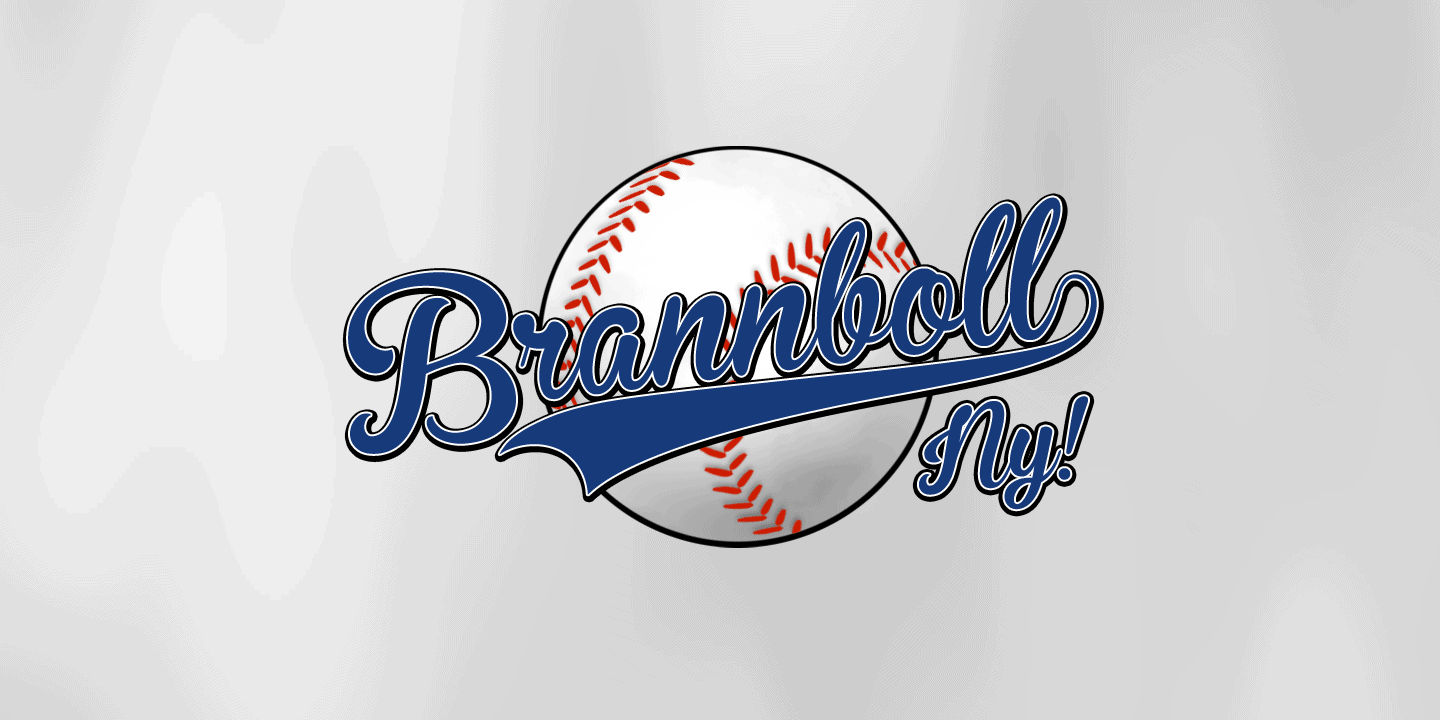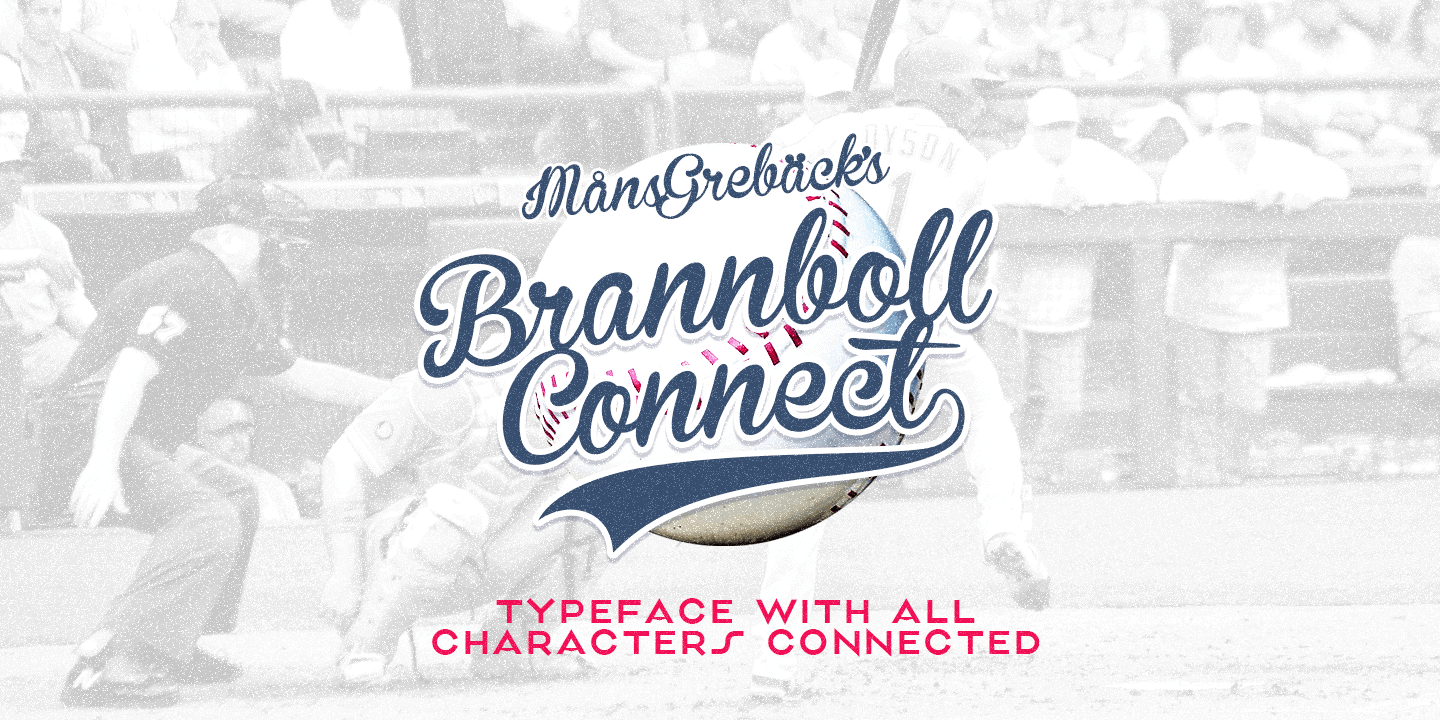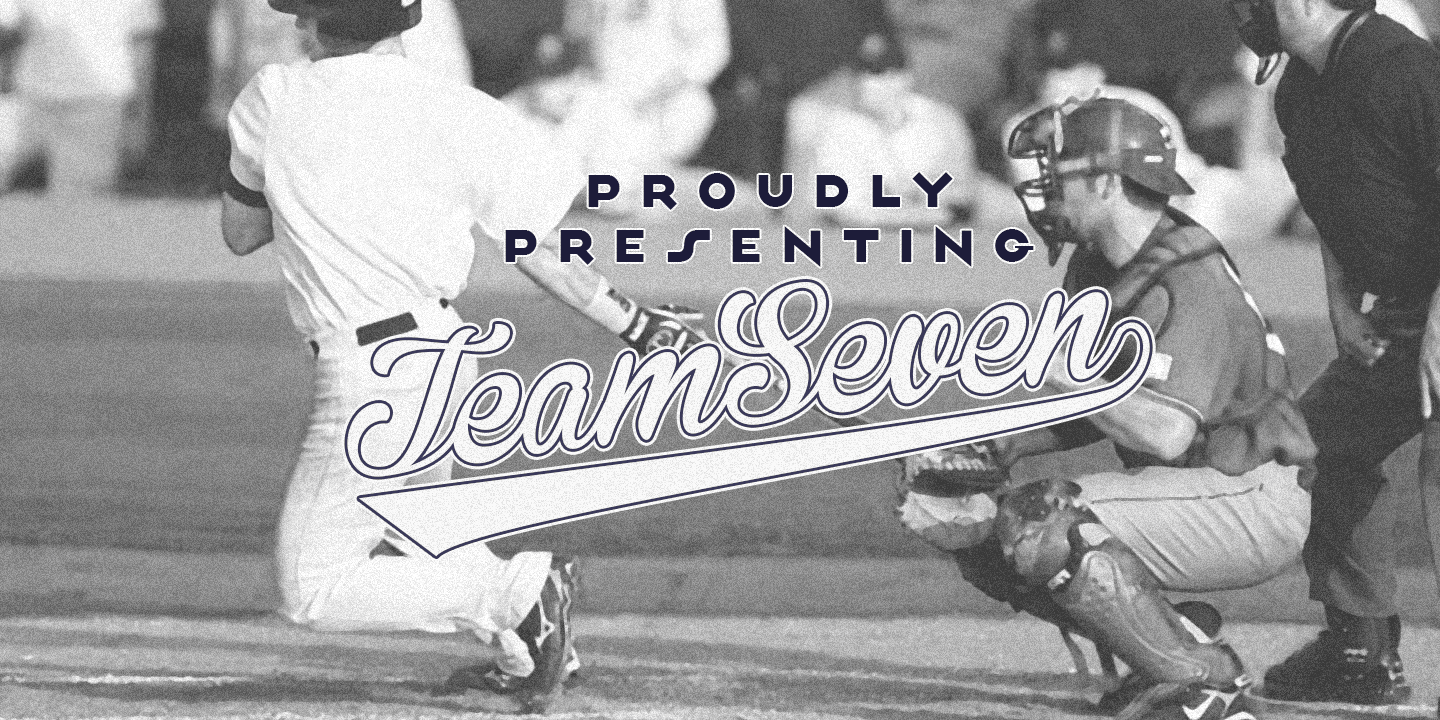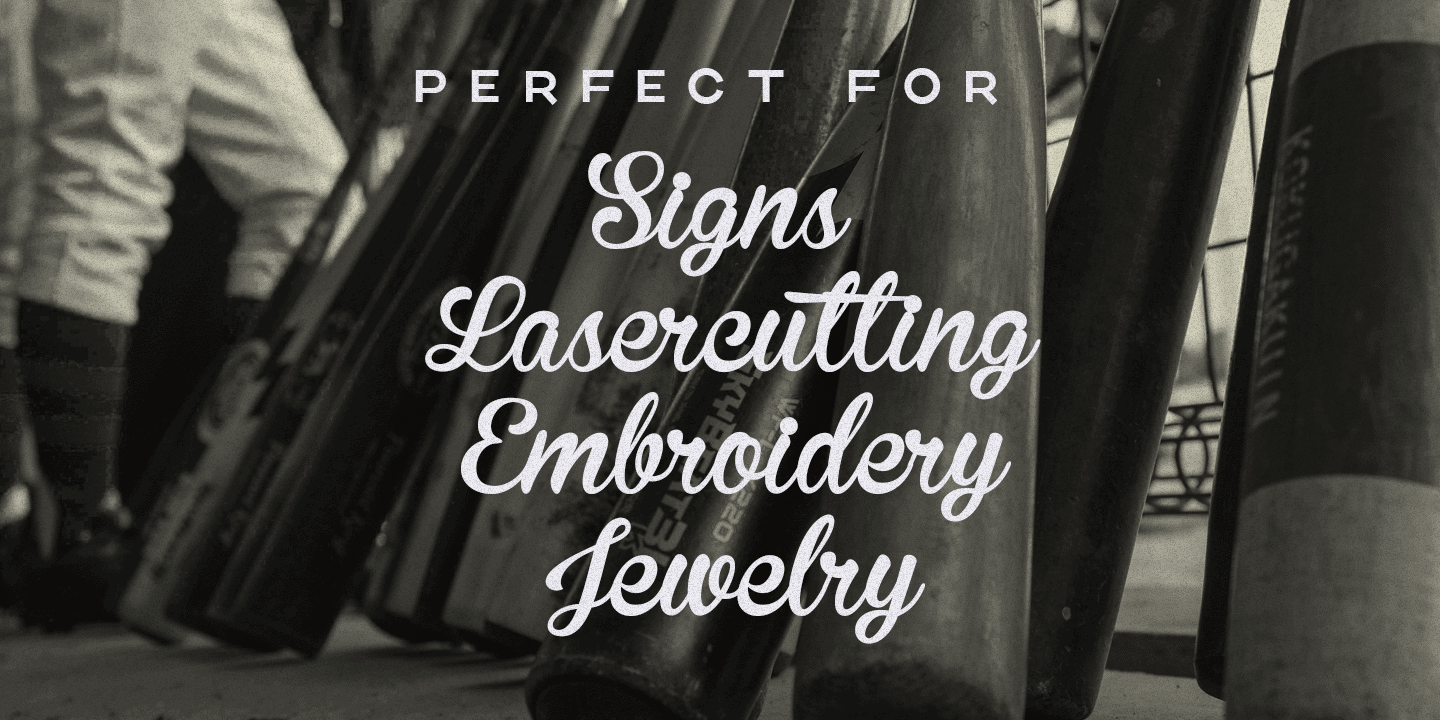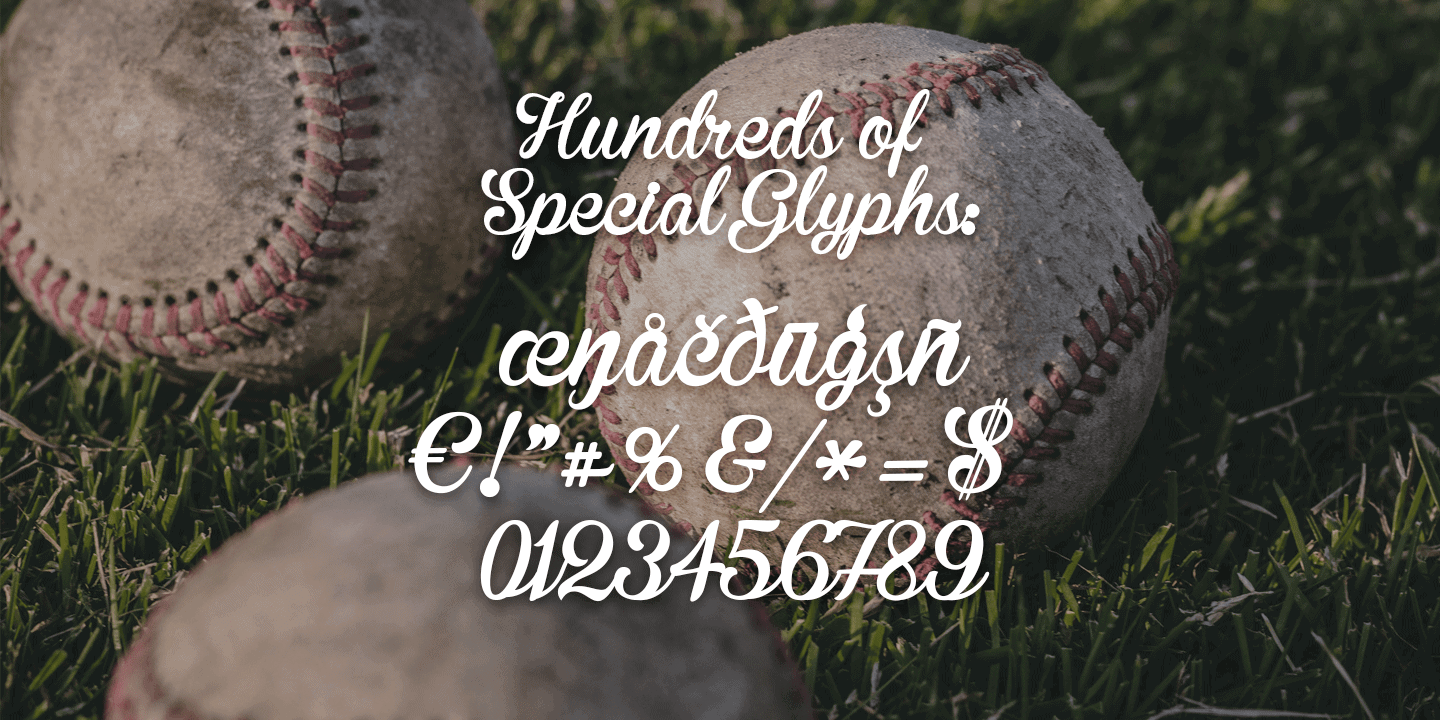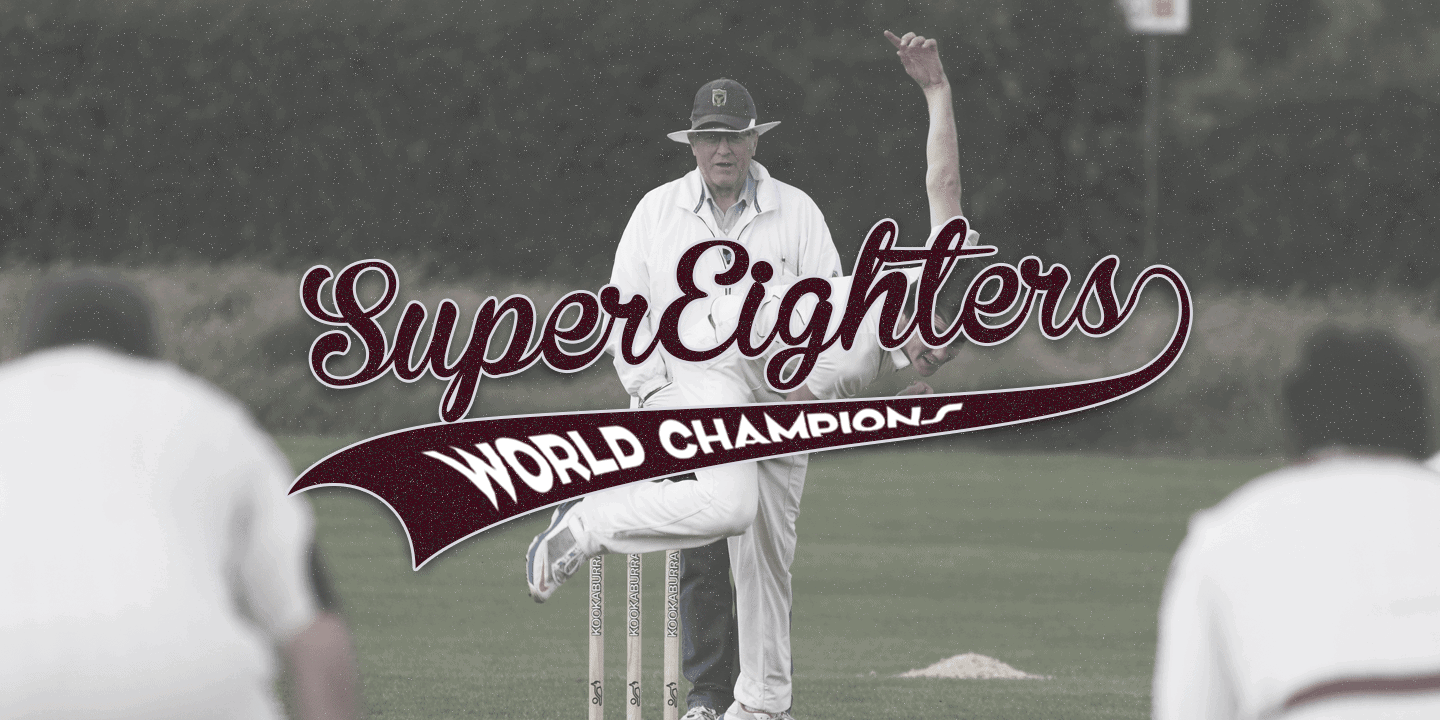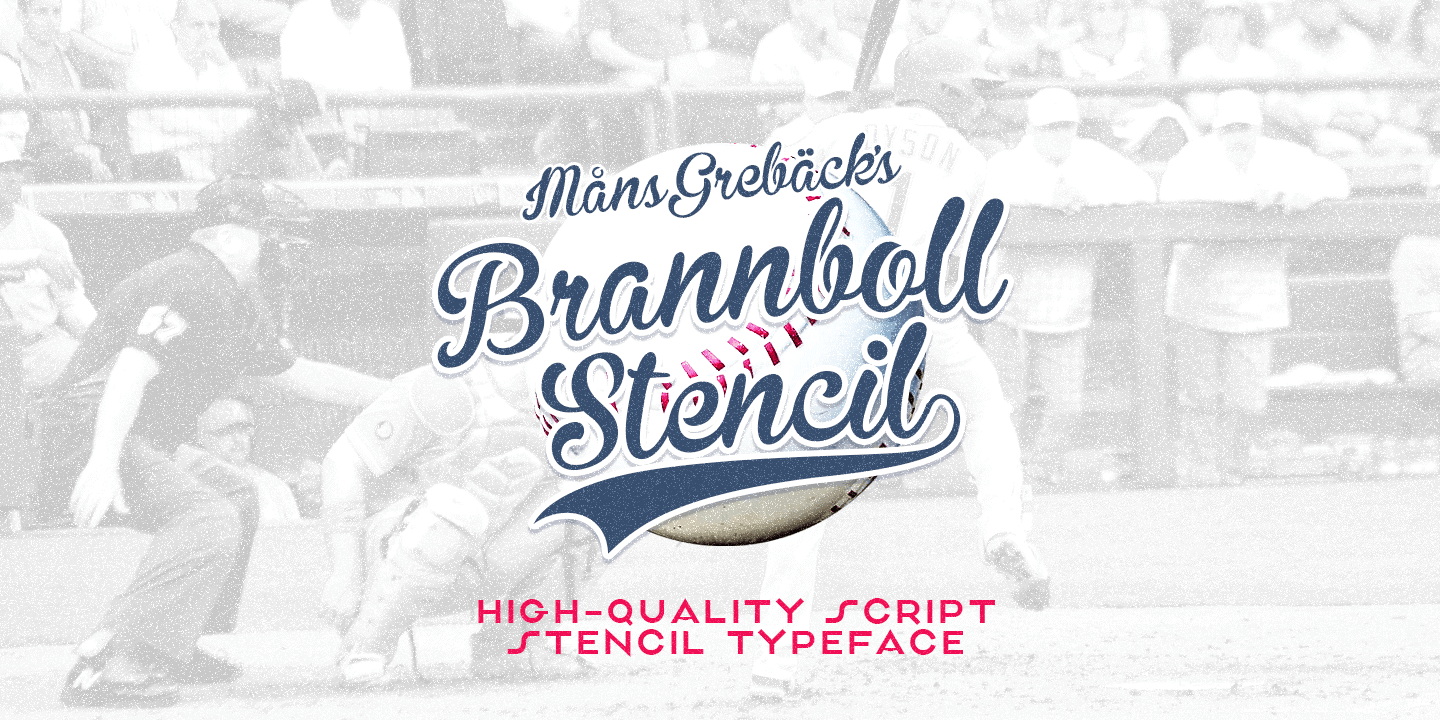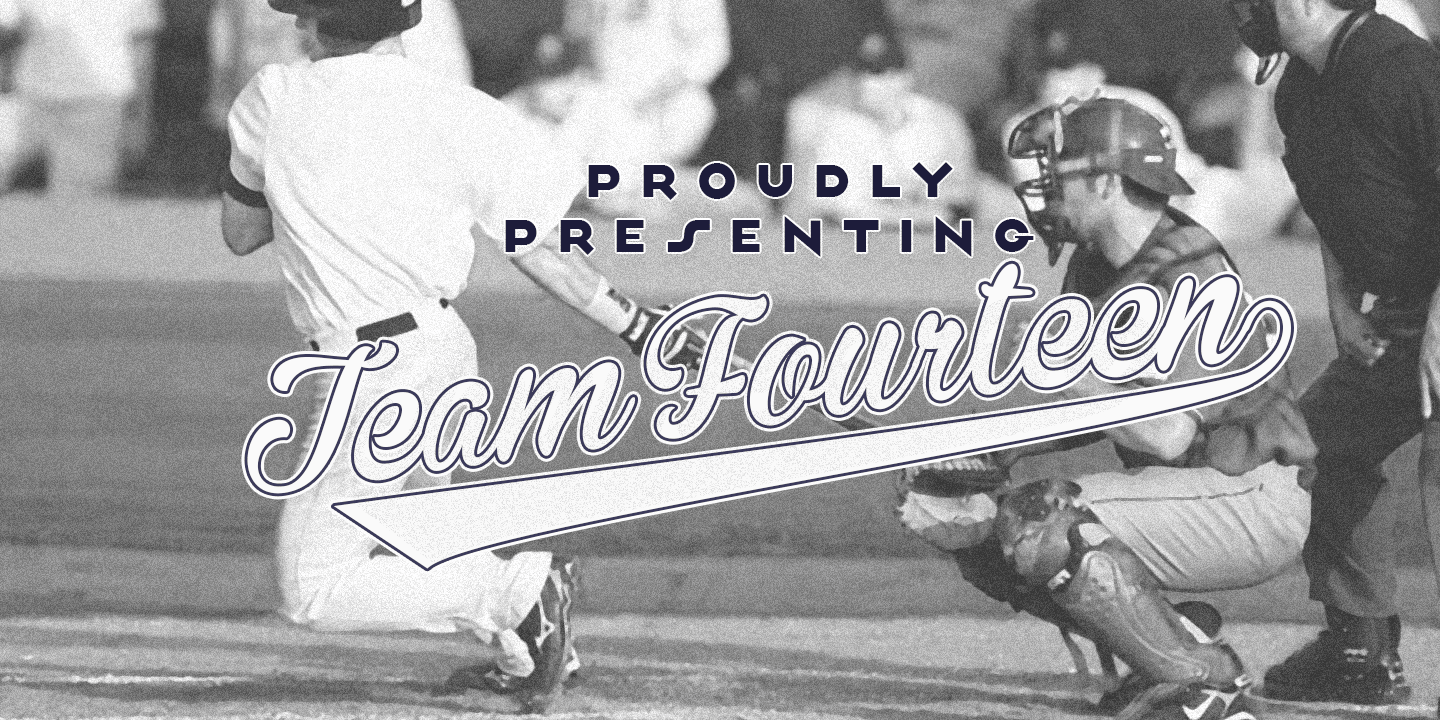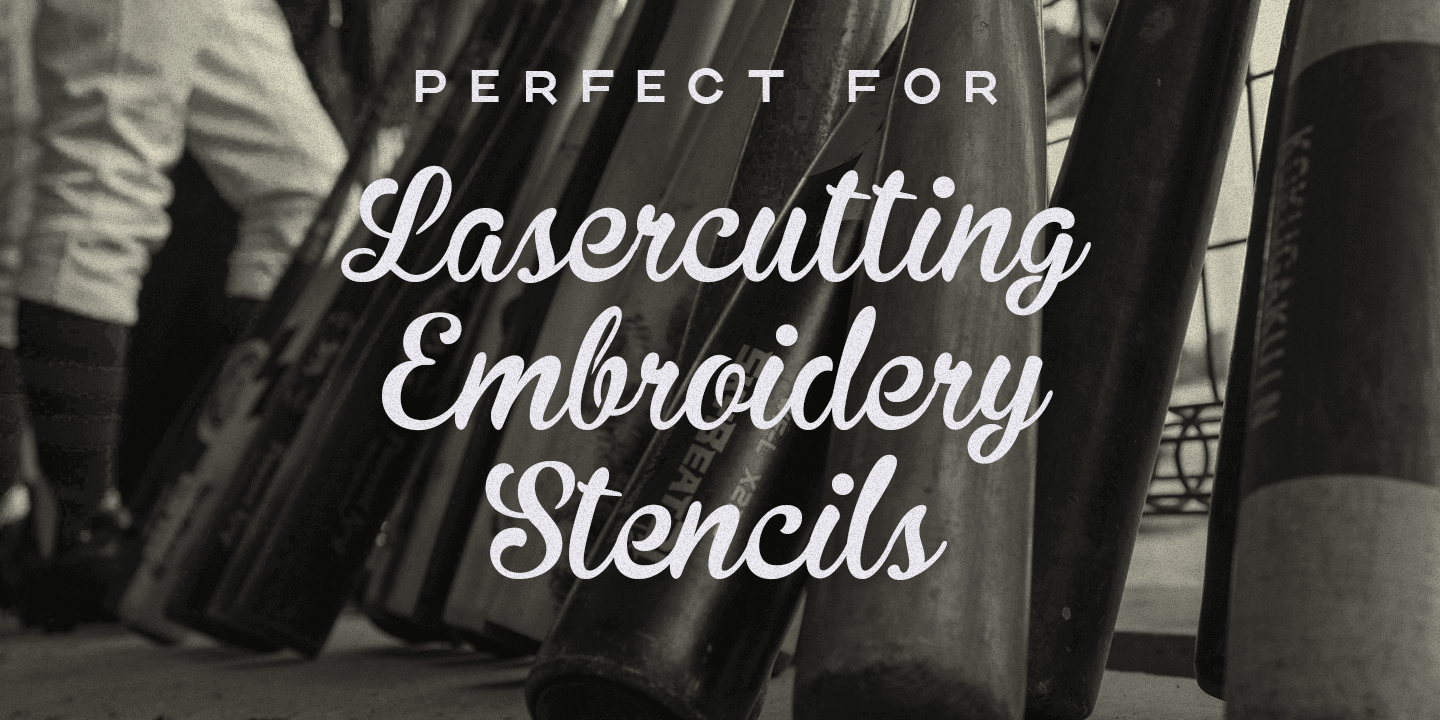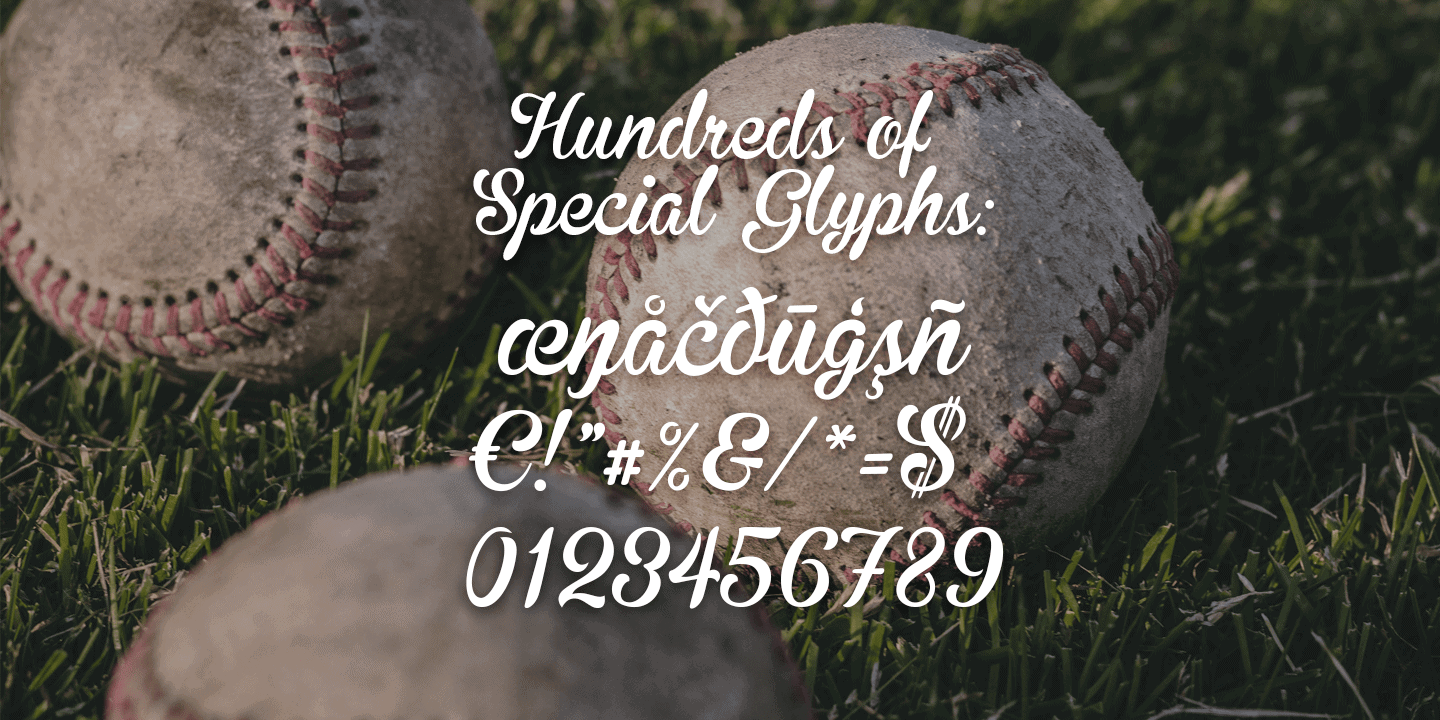
Brannboll Font
Brannboll Connect Poster01
Brannboll Connect Poster02
Brannboll Connect Poster03
Brannboll Connect Poster04
Brannboll Connect Poster05
Brannboll Stencil Poster01
Brannboll Stencil Poster02
Brannboll Stencil Poster03
Brannboll Stencil Poster04
Brannboll Stencil Poster05
About the Brannboll Font
Baseball style script font. Contains ten different swashes to get a custom look on the words you write. Includes numbers! Also comes with laser cutting fonts Brannboll Stencil and Brannboll Connect. Brannboll Stencil: All whitespaces are connected with the background, making it flawless for work on signs, jewelry, stencils and general cutting. Brannboll Connect: Each character and all their parts are physically connected, making it a lettering perfect for laser cutting, signs, jewelry, woodworking and embroidery.
Baseball style script font. Contains ten different swashes to get a custom look on the words you write. Includes numbers!
Also comes with laser cutting fonts Brannboll Stencil and Brannboll Connect.
Brannboll Stencil: All whitespaces are connected with the background, making it flawless for work on signs, jewelry, stencils and general cutting.
Brannboll Connect: Each character and all their parts are physically connected, making it a lettering perfect for laser cutting, signs, jewelry, woodworking and embroidery.